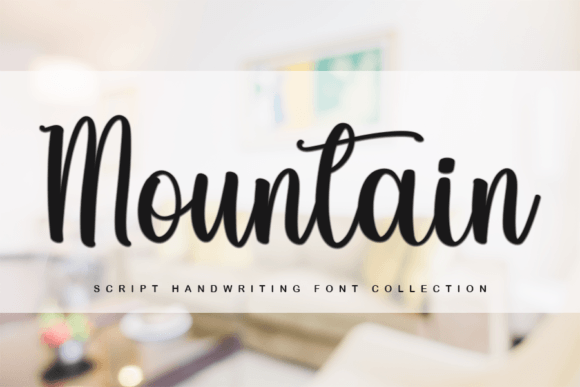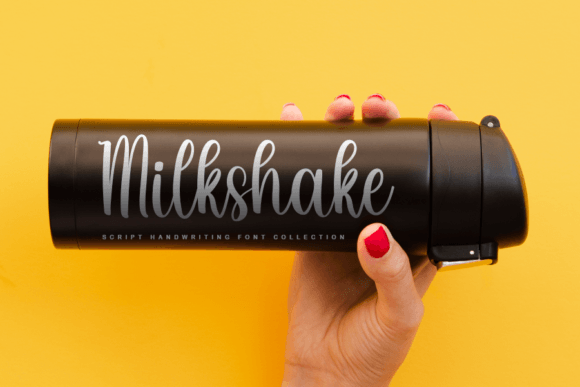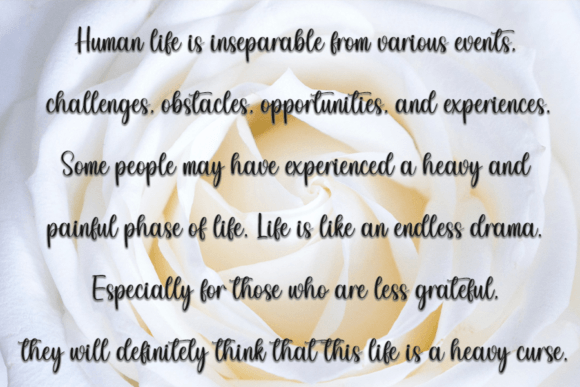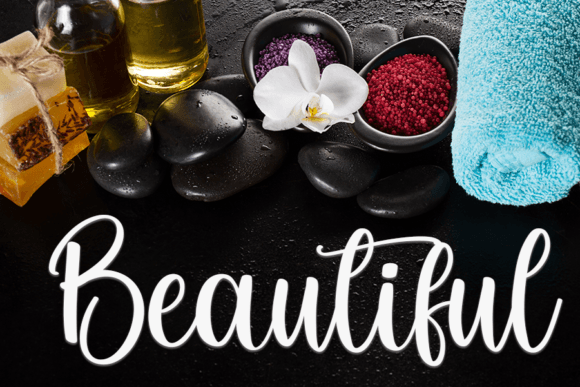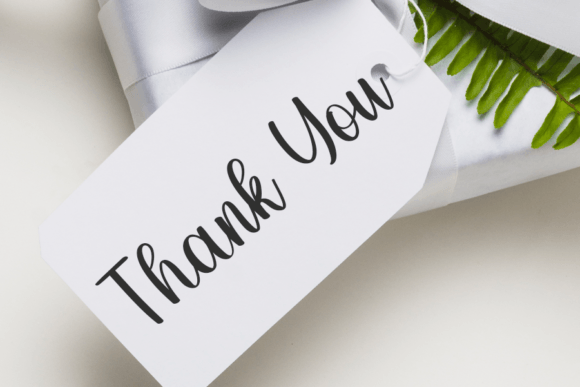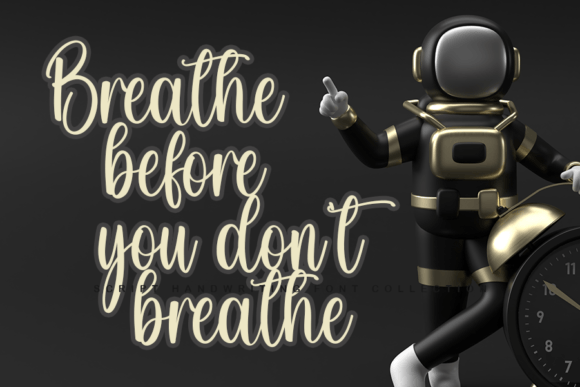
Mountain Font
About Mountain Font
Mountain Font is a beautifully crafted handwritten script that combines contemporary style with the timeless grace of classic calligraphy. This elegant font boasts smooth, flowing lines and a refined structure that lends an air of sophistication to any design.
Inspired by Timeless Calligraphy
Mountain Font takes its inspiration from classic calligraphy traditions, bringing a sense of heritage and artistry to modern design. The font’s balanced strokes and clean curves create a perfect harmony between tradition and contemporary flair.
Ideal for Elegant Projects
This font is perfect for adding a touch of elegance to a wide range of projects. Whether you are designing wedding invitations, branding materials, greeting cards, or logos, Mountain Font delivers a polished and stylish look. Its delicate yet strong presence ensures your designs stand out gracefully.
Versatile for Various Uses
MountainFont adapts effortlessly to both digital and print media. It looks stunning on product packaging, social media graphics, posters, and more. Its legibility and charm make it a great choice for designers seeking sophistication without sacrificing readability.
Why Choose Mountain Font?
MountainFont offers a unique blend of classic elegance and modern design, making it a versatile asset for any creative project. Its impeccable form and timeless inspiration allow you to craft designs that are both fresh and enduring. Whether you want to elevate a personal project or enhance professional branding, MountainFont is a stylish choice.